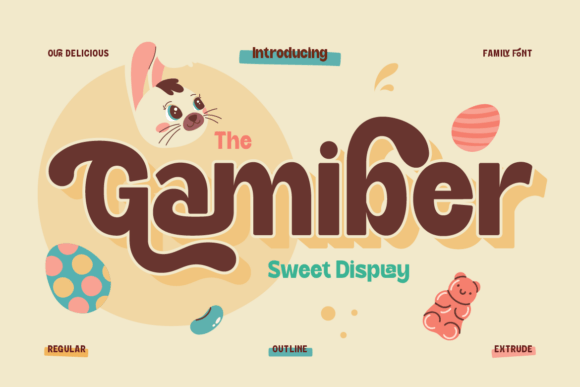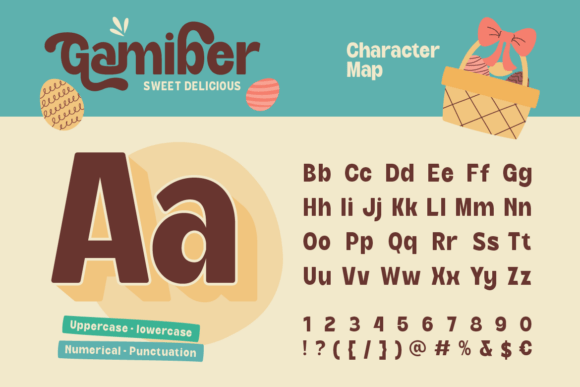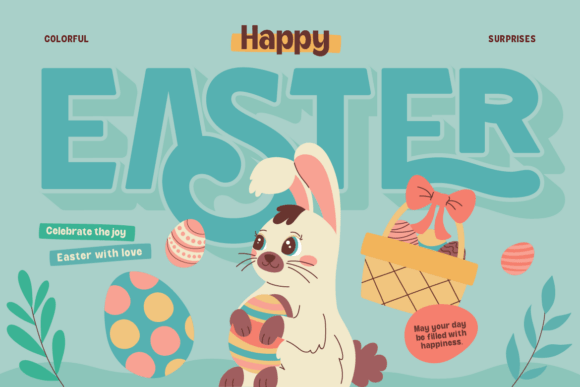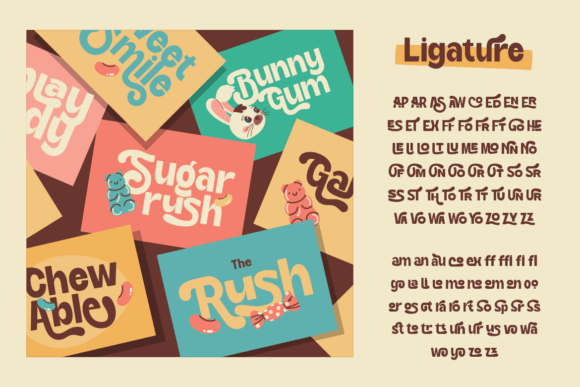
Gamiber Font: A Sweet & Playful Display Font for Cute Retro Designs!
About the Gamiber Font
Elevate your designs with Gamiber Font, a font that combines sophistication with readability. Say hi to Gamiber, our sweet and playful display font! 🎉
This font brings a fun retro vibe with bold shapes and smooth, curvy lines. It’s perfect for cheerful and eye-catching design projects.
Gamiber comes in three styles: Regular, Outline, and Extrude, making it super easy to mix and match for your designs. Whether you’re working on branding, packaging, posters, or social media, this font is a great choice—especially for food-related themes, nostalgic designs, and anything kid-friendly!
Gamiber’s playful energy and retro styling make it ideal for headlines, logos, short taglines, and packaging designs, particularly for brands targeting younger demographics or those with a whimsical, nostalgic feel. Its bold shapes ensure high readability even at larger sizes. However, its less-than-optimal x-height makes it unsuitable for body text or long-form content. Avoid using it in UI contexts where legibility is paramount.
Pairing Gamiber effectively requires considering its retro-inspired curves. A clean sans-serif like Montserrat or Open Sans provides a sophisticated counterpoint, balancing its boldness with modern simplicity. For a more playful feel, a rounded geometric sans-serif such as Nunito Sans could work well. Alternatively, a classic serif like Playfair Display could add a touch of elegance and vintage charm.
Gamiber’s overall personality is best described as cheerful and retro-modern. Its strong forms and smooth lines create a sense of fun and approachability, while its design nods to mid-century aesthetics. This makes it a versatile choice for projects that need to convey playfulness and a hint of nostalgia.